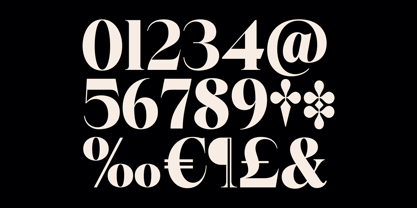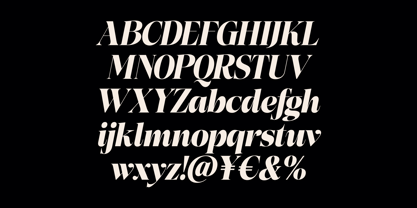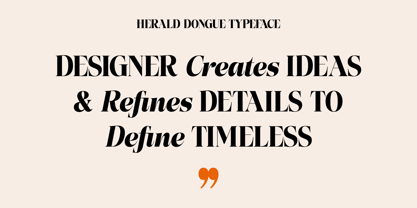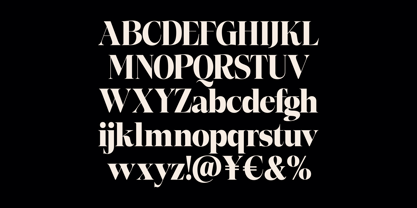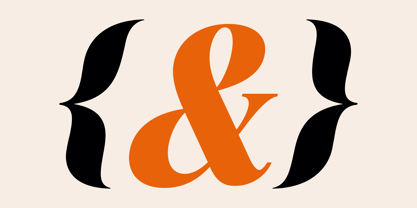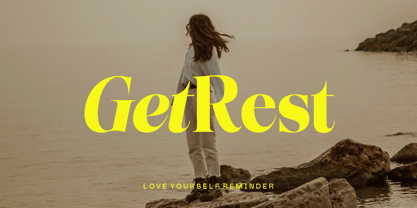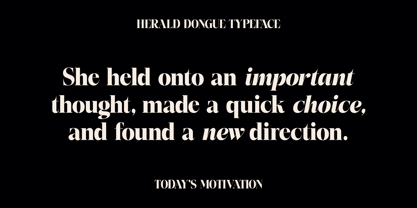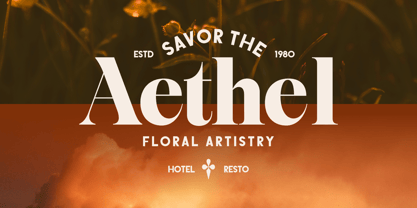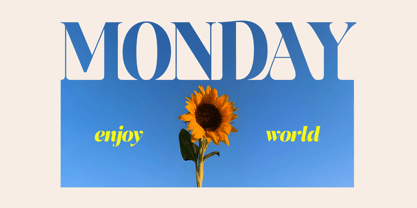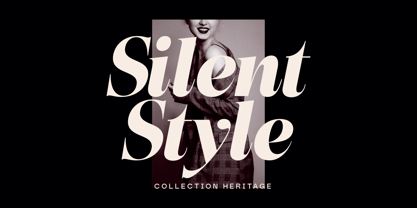
Herald Dongue
by Marvadesign
The Herald Dongue Font Family was designed by Febrie Setiawan and published by Marvadesign. Herald Dongue contains 2 styles and family package options. More about this family
Herald Dongue is a refined editorial serif typeface that blends classical elegance with contemporary sophistication. Inspired by heritage typography and timeless print traditions, this font features graceful high-contrast strokes, sculpted serifs, and balanced proportions that give it a strong yet elegant presence. The letterforms feel confident and authoritative while maintaining a soft, artistic rhythm, making Herald Dongue highly expressive without appearing rigid. Its carefully crafted curves and subtle details add a sense of luxury, depth, and editorial character, suitable for both modern and classic design aesthetics. The Regular style offers clarity and stability, making it ideal for headlines, branding, posters, and editorial layouts where strong visual impact is essential. Meanwhile, the Italic style introduces a refined sense of movement and emotion, with elegant slanted forms that enhance storytelling, quotes, and emphasis text. Together, these two styles create a versatile typographic system that works beautifully in fashion editorials, luxury branding, magazines, cultural projects, and high-end visual identities.